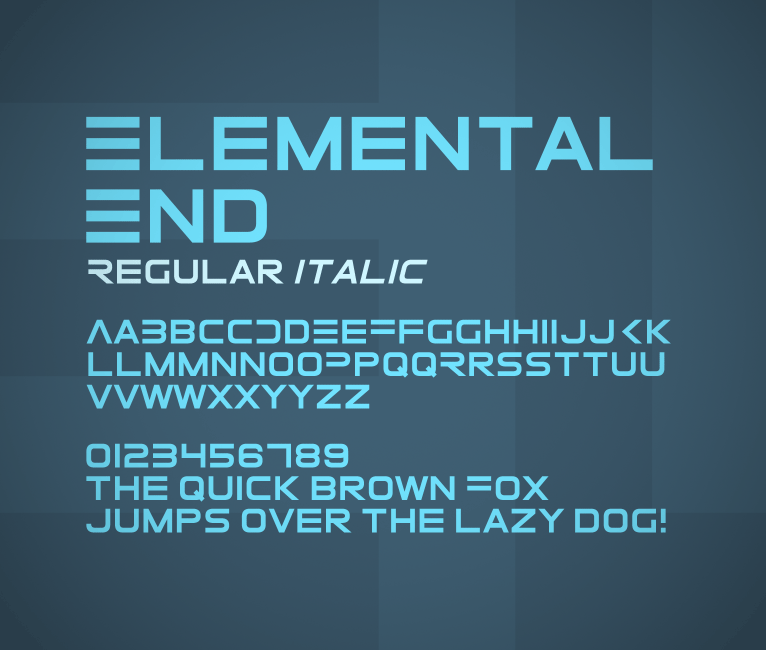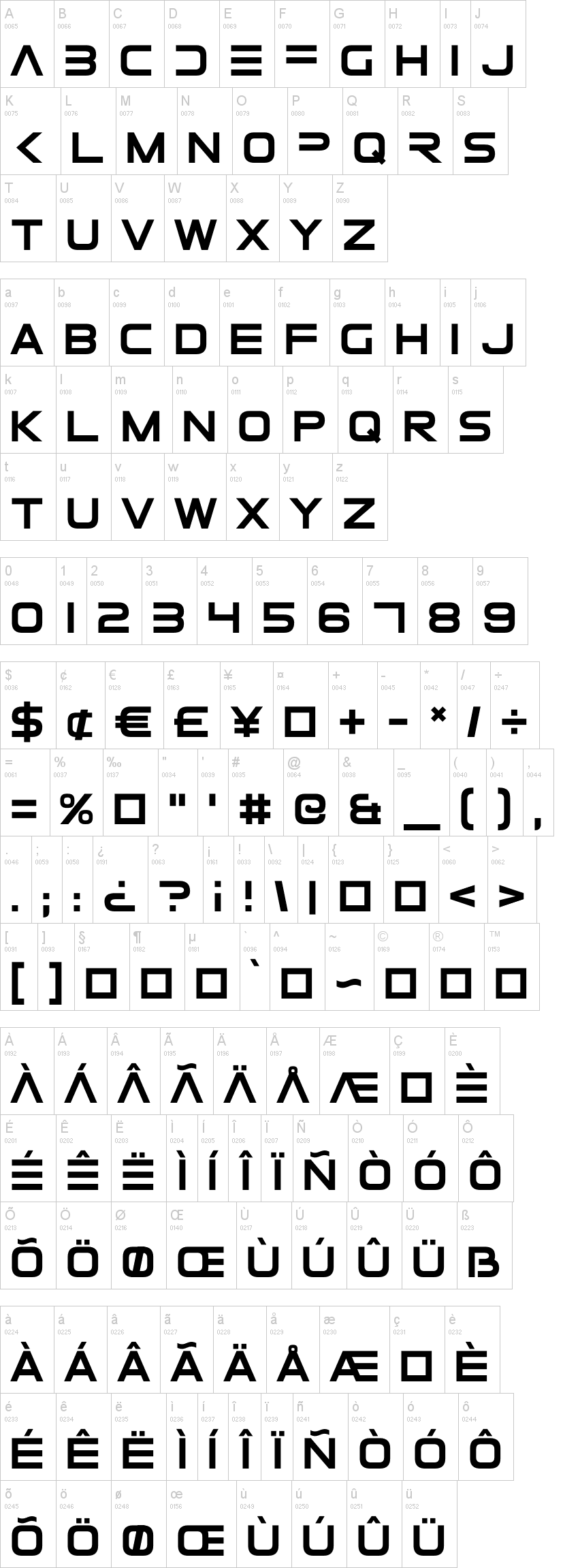
A futuristic sans serif caps headline face.
Comes in regular and italic.
Upper case letters are alternative forms, while lower case are more standard and readable forms. Includes alternative versions of A, B, D, E, F, K, P, R and AE.
2012/7/10 Update, version 2.00: Re-did some of the glyphs to keep the brush width constant, re-did the italic version, added more alternative forms of some letters, fixed naming/formatting, kerning and a bunch of other stuff.